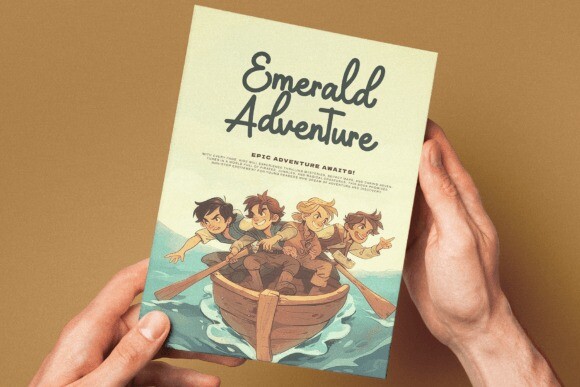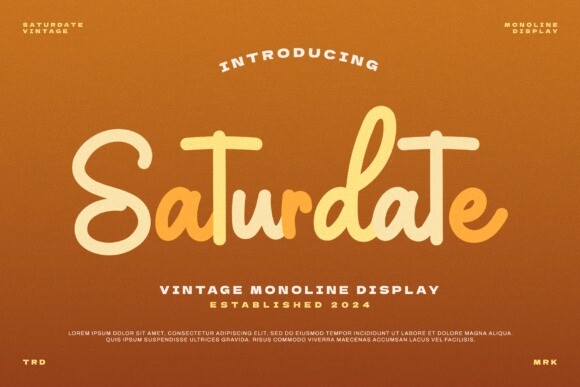
Saturdate Font
Saturdate Font is a sweet and friendly handwritten font. Its natural and unique style makes it incredibly fitting to a large pool of designs. The only limit is your imagination!